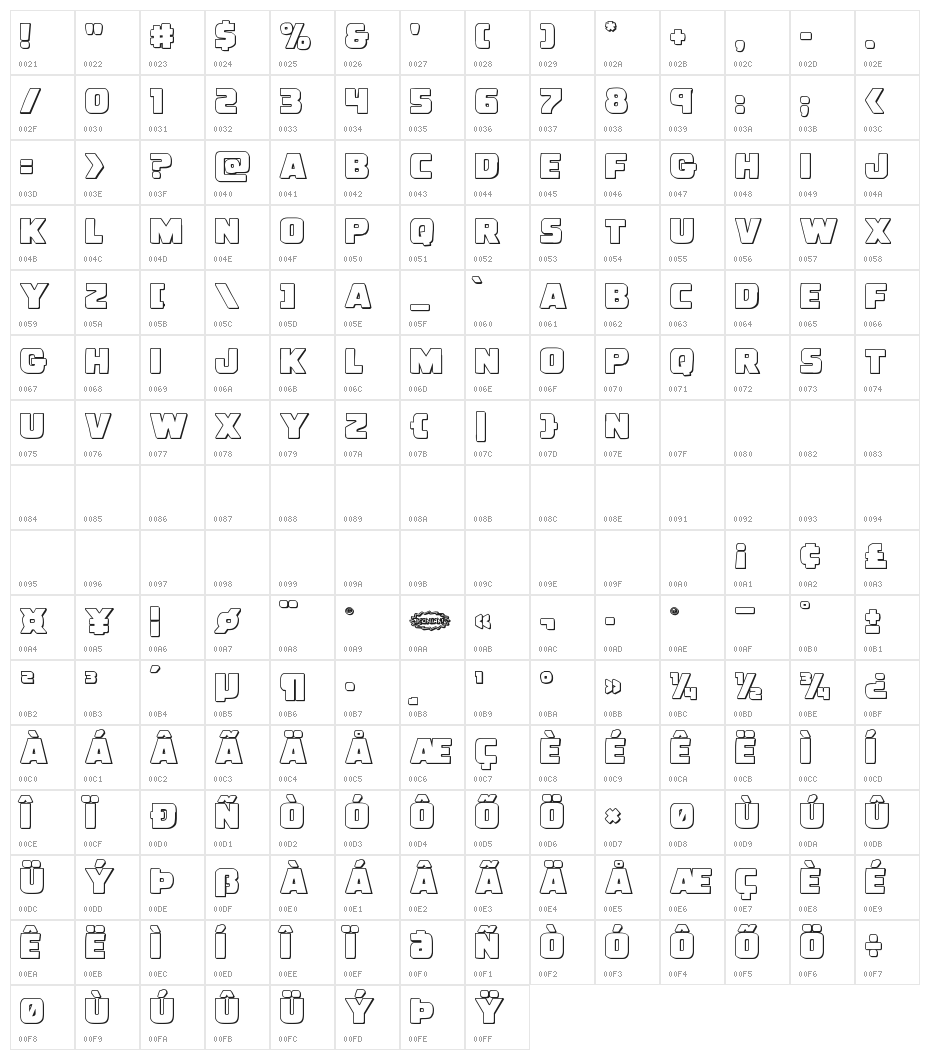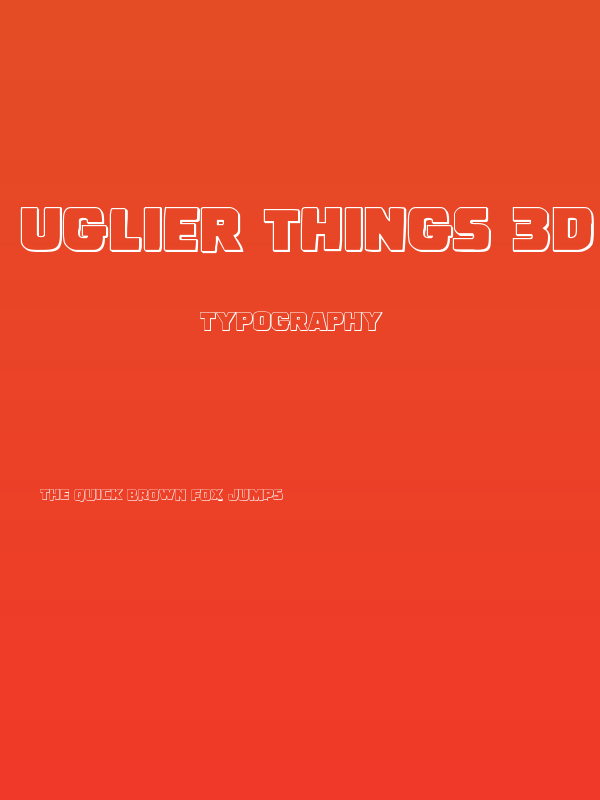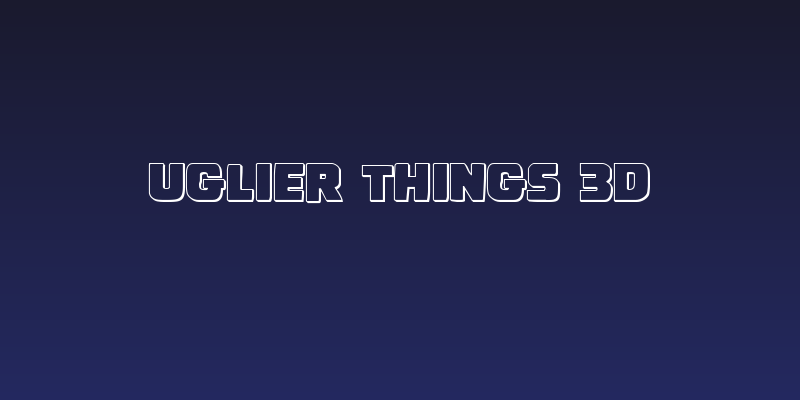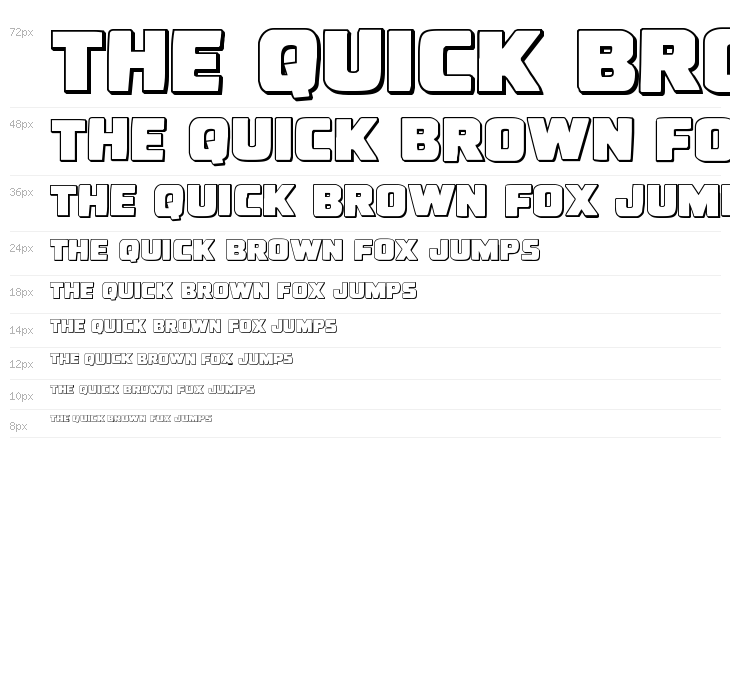
Uglier Things 3D Font
Uglier Things 3D Description
This font features a bold, three-dimensional style with a strong outline that gives each character a distinct, blocky appearance. The uppercase letters are robust and commanding, while the numbers and special characters maintain the same boldness and clarity. The font's 3D effect is achieved through a shadow-like outline that adds depth and dimension, making it stand out on any medium. The characters are evenly spaced, ensuring readability while maintaining a cohesive look. This font is ideal for projects that require a striking and impactful visual presence.